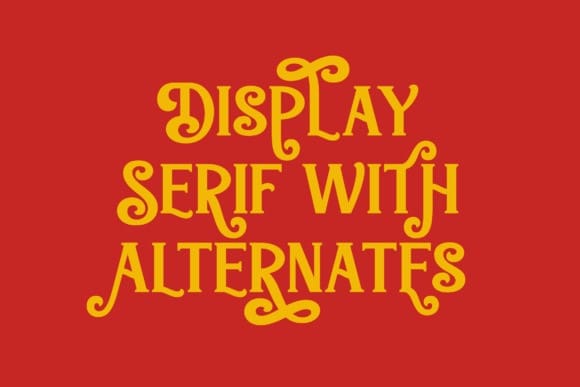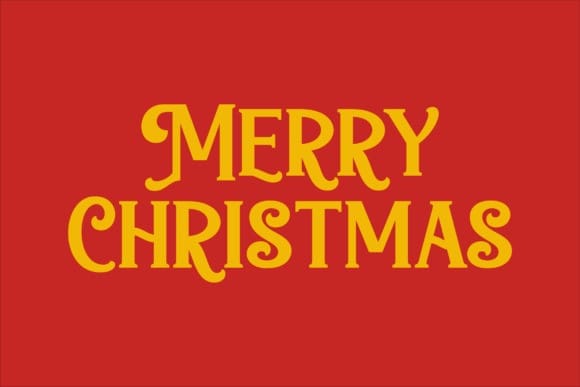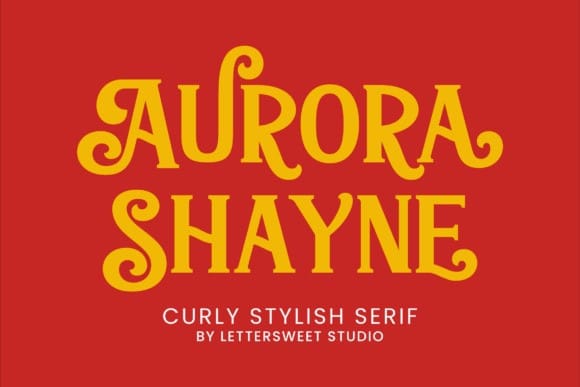
Aurora Shayne Font
Aurora Shayne Font is a playful and curly stylish serif font that captures attention with its bold, yet whimsical design. The distinctive swirls and curves in the letters give it a lively and energetic feel, making it perfect for creative projects, from children’s books to fun branding. The thick, structured base of each letter balances the decorative elements, ensuring legibility while maintaining a unique personality. Aurora Shayne’s charm lies in its ability to add a joyful and imaginative touch to any design, evoking a sense of fun and creativity.